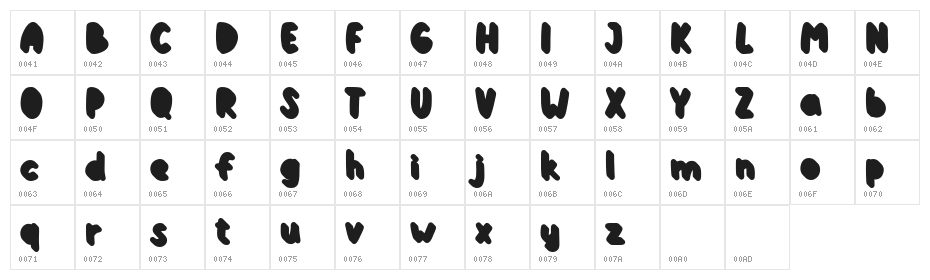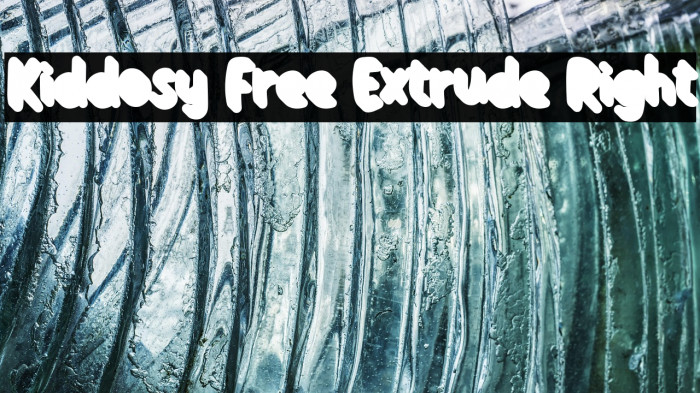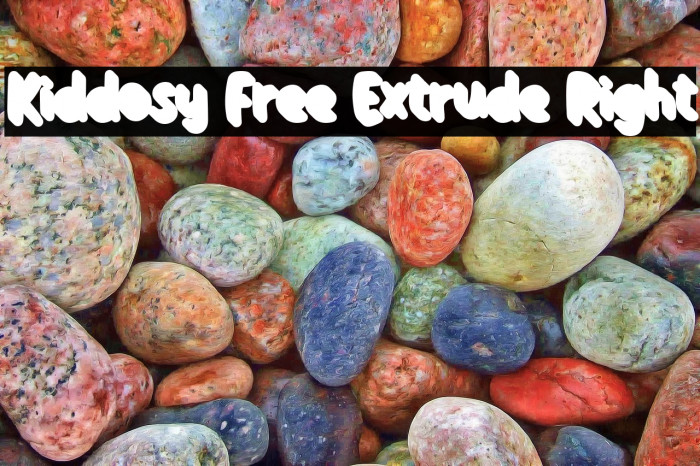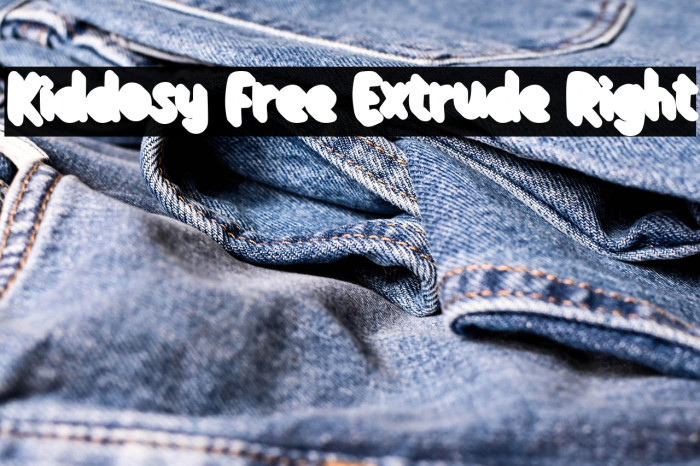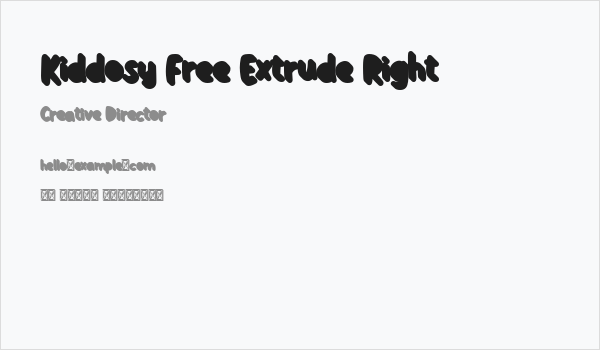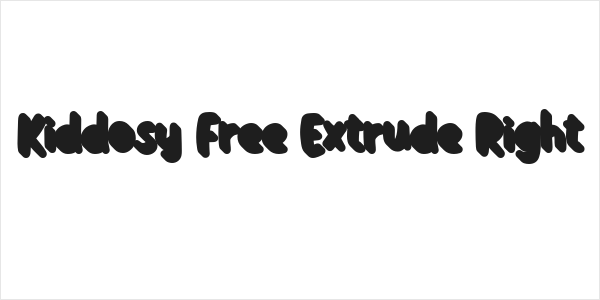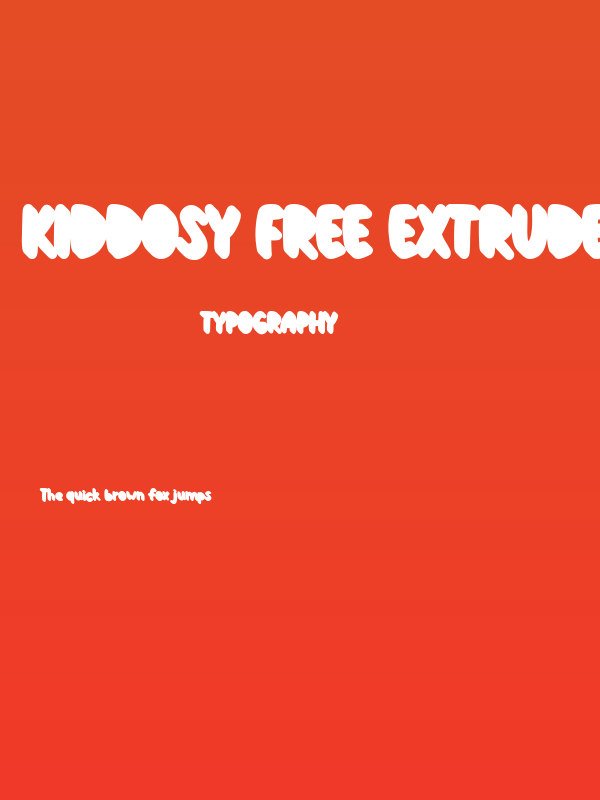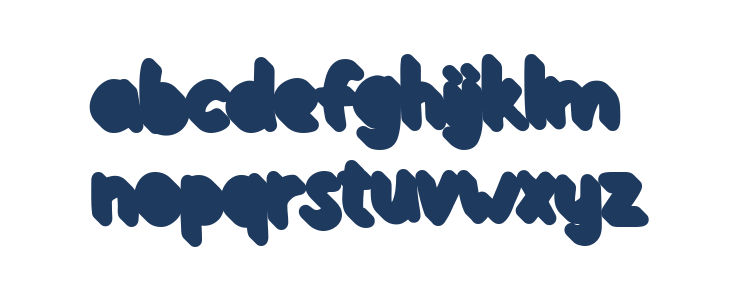
Kiddosy Free Extrude Right Font
Kiddosy Free Extrude Right Description
This playful and bold font features a thick, rounded style that exudes a sense of fun and creativity. The characters are heavily weighted with a consistent thickness throughout, giving them a solid and impactful appearance. The rounded edges soften the overall look, making it approachable and friendly. This font is particularly eye-catching due to its extruded right shadow effect, adding depth and a three-dimensional feel. The spacing between characters is tight, enhancing the compact and cohesive look of the text. It's perfect for projects that require a lively and energetic vibe.
| Overall Style | Playful, Fun |
| Proposed Projects | Ideal for children's books, playful branding, posters, and creative event invitations. |